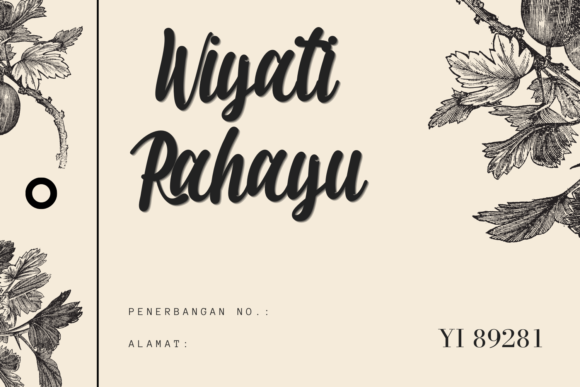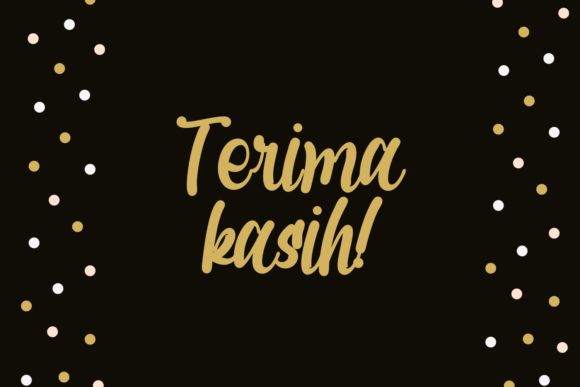
Introducing Berkah Font: Elevate Your Designs with a Stylish and Confident Touch
In the world of design, fonts play a crucial role in conveying the tone and personality of a brand or project. A well-chosen font can make all the difference in capturing the attention of your audience and leaving a lasting impression. If you’re on the hunt for a font that exudes strength, confidence, and dynamism, look no further than Berkah Font. This gorgeous and bold handwritten font is specifically crafted to give your headlines and logotype projects a stylish touch that’s sure to turn heads.
The Power of Berkah Font
Berkah Font is more than just a font – it’s a design statement. With its bold and confident strokes, this font reads as strong and dynamic, making it perfect for designers and crafters looking to add a unique character to their designs. Whether you’re working on a logo, headline, or any other project that requires a touch of personality, Berkah Font is the perfect choice. Its stylish and modern aesthetic is sure to elevate your designs and set them apart from the rest.
Key Features of Berkah Font
- Bold and Confident: Berkah Font is designed to make a statement. Its bold strokes and confident lettering make it perfect for headlines, logotypes, and any other project that requires a strong presence.
- Handwritten with Flair: This font is carefully crafted to give your designs a personal and human touch. Its handwritten style adds a level of sophistication and elegance to any project.
- Dynamic and Versatile: Berkah Font is incredibly versatile and can be used in a variety of design projects, from logos and headlines to posters and packaging.
- Unique Character: This font is designed to add a unique character to your designs. Its stylish and modern aesthetic ensures that your projects will stand out from the crowd.
Why Choose Berkah Font?
With so many fonts available, why choose Berkah Font? Here are just a few reasons why designers and crafters are falling in love with this gorgeous font:
- Instant Recognition: Berkah Font is designed to grab attention and make a lasting impression. Its bold and confident strokes ensure that your designs will be noticed.
- Easy to Read: Despite its bold style, Berkah Font is incredibly easy to read, making it perfect for headlines and logotypes.
- Scalable: This font is designed to be scalable, ensuring that it looks great in any size or format.
How to Use Berkah Font in Your Designs
Using Berkah Font in your designs is easy. Here are a few tips to get you started:
- Headlines and Logotypes: Berkah Font is perfect for headlines and logotypes. Use it to add a bold and confident touch to your designs.
- Branding and Identity: This font is ideal for branding and identity projects. Use it to create a strong and memorable brand presence.
- Posters and Flyers: Berkah Font is great for posters and flyers. Use it to add a touch of personality and style to your designs.
In conclusion, Berkah Font is a gorgeous and bold handwritten font that’s perfect for designers and crafters looking to add a stylish touch to their designs. With its strong, confident, and dynamic strokes, this font is sure to elevate your projects and make a lasting impression. Whether you’re working on a logo, headline, or any other design project, Berkah Font is the perfect choice.